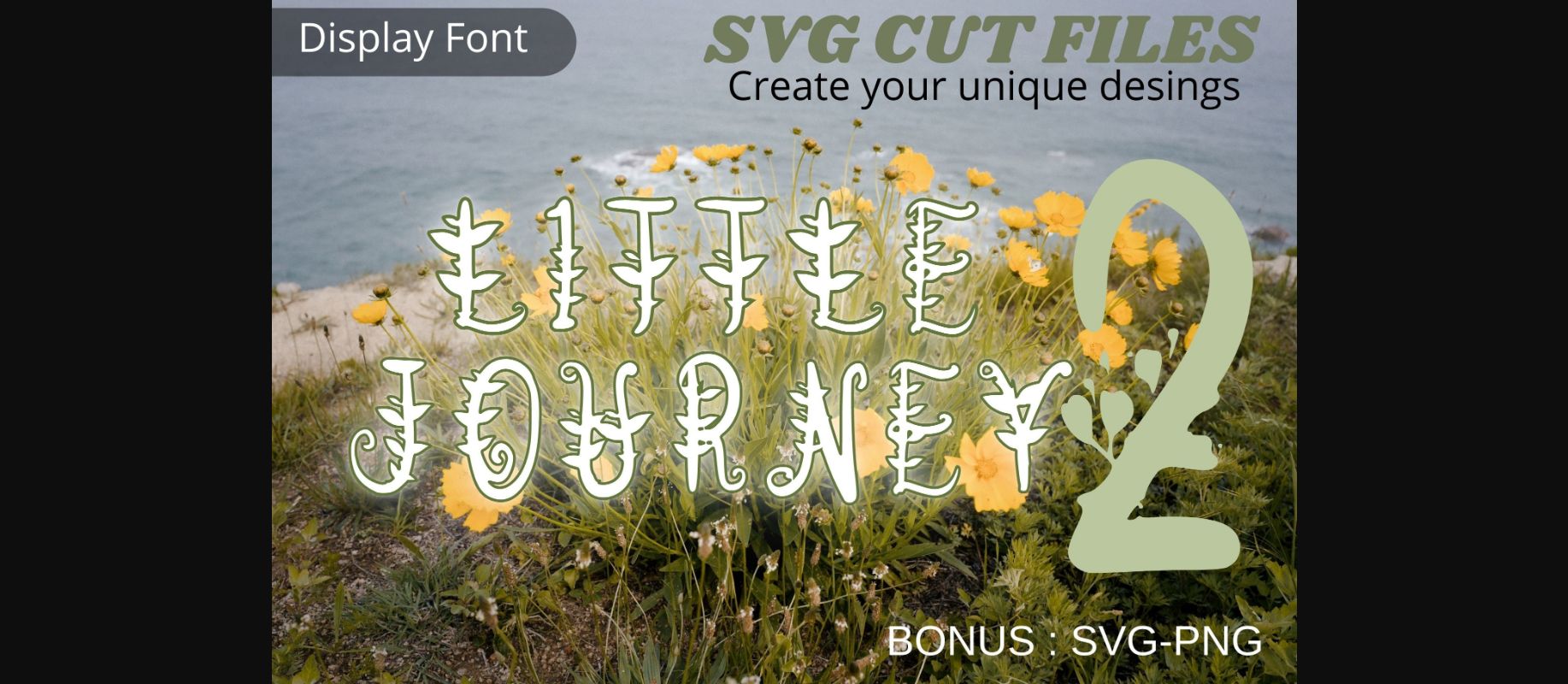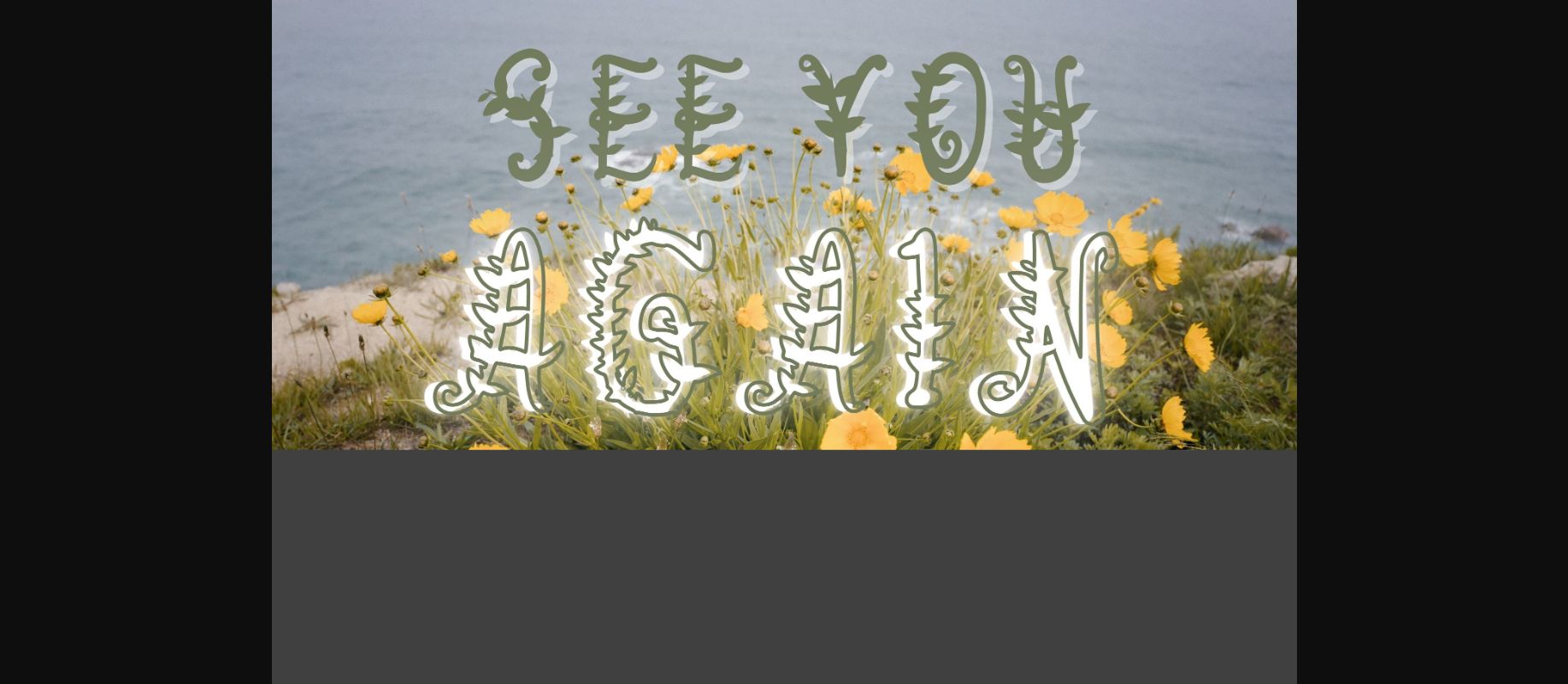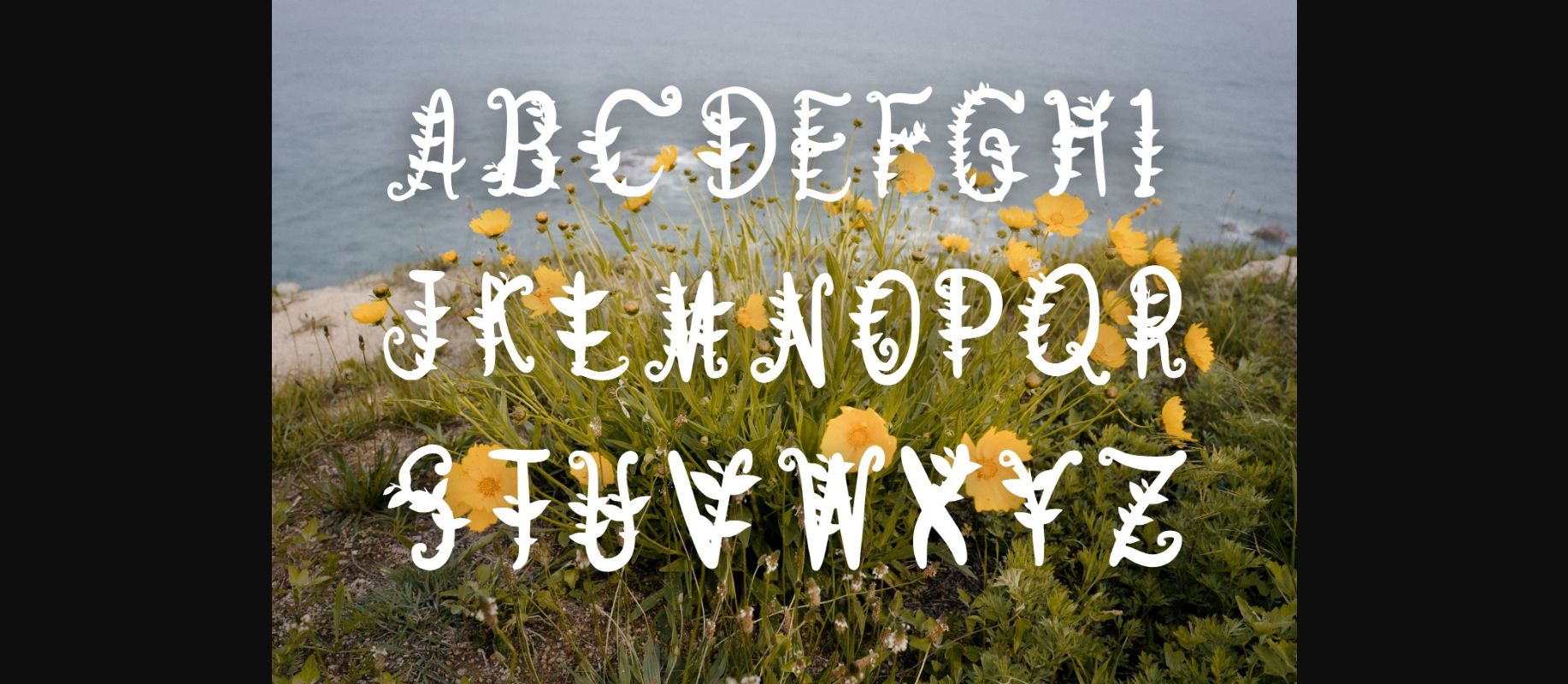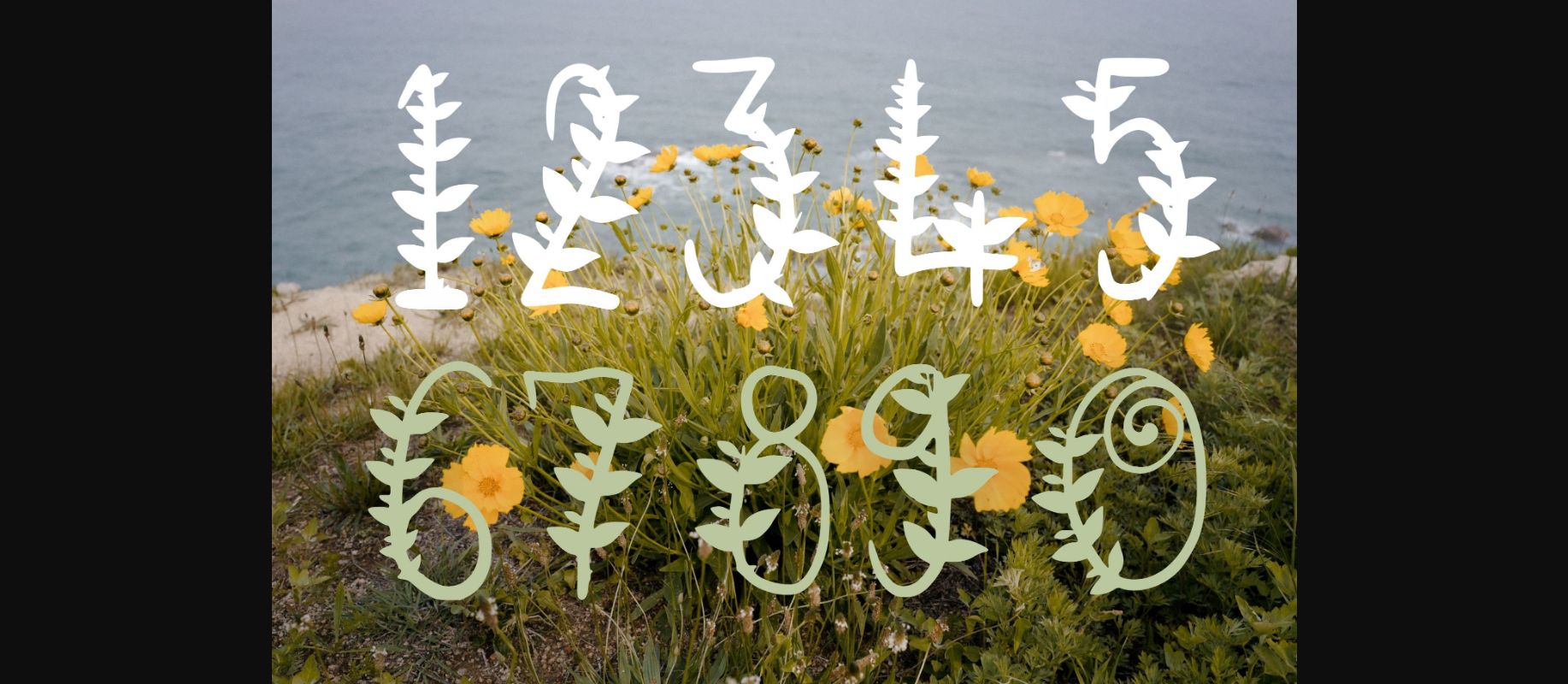
Little Journey2 Font
About Little Journey2 Font
Little Journey2 is a highly detailed, fresh and unique decorative font. You can use it for various projects, such as blog posts, logos, branding, ads, invitations, greeting cards, planners, photo albums, decorations, and much more. Add it to any of your designs, and enjoy the results!